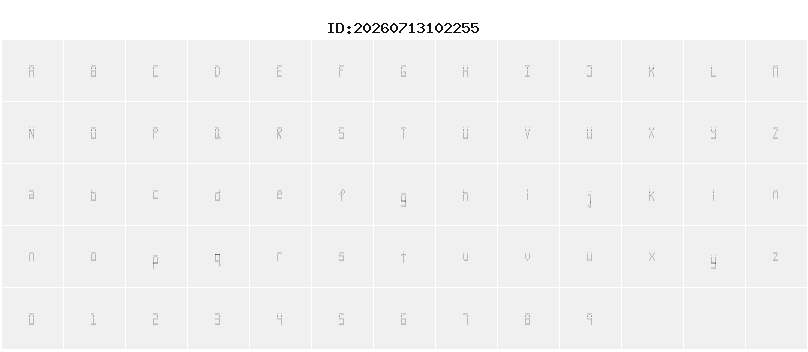
Rank:) Preview
• Font Name: Rank:)
• Font ID: FontStruct Rank:)
• Full Font Name: Rank:) Regular
• PostScript Name: Rank:)
• Character Count: 93
• Designer: leyonce
• Description: “Rank:)” was built with FontStruct
About Rank:).ttf
Rank:).ttf is a modern, elegant sans-serif font designed for ultimate readability and visual harmony. Perfect for branding, headlines, web design, and print materials.